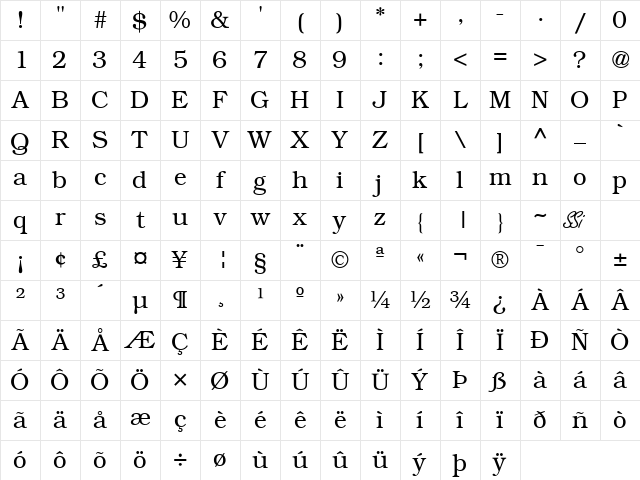
Bookman Light SSi Light Free Font
Bookman Light SSi Light
Bookman Light SSi Family
Bookman Light SSi Light
Design Context for Bookman Light SSi
Bookman Light SSi is a composed and adaptable typeface that performs quietly and consistently across a wide range of design contexts. Its slender proportions lend an understated elegance to any composition.